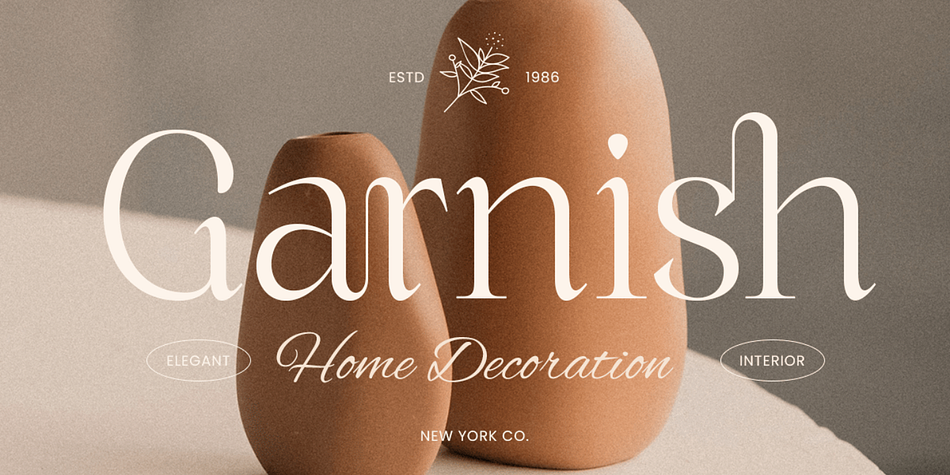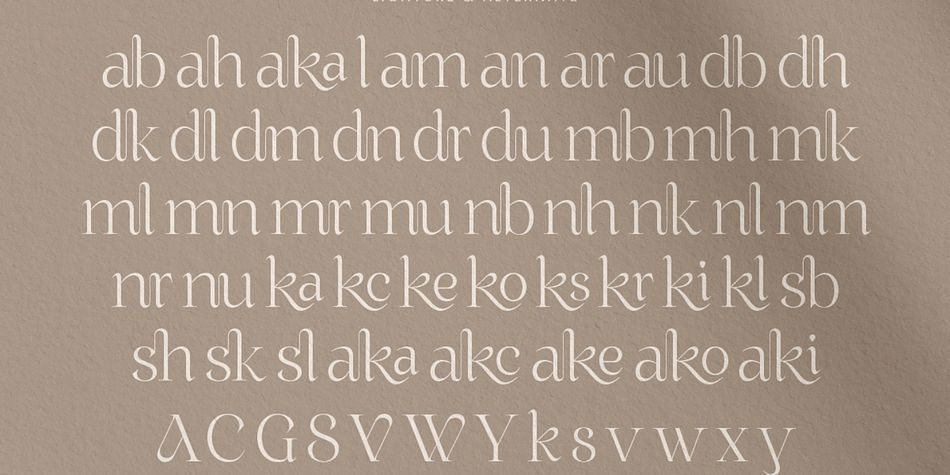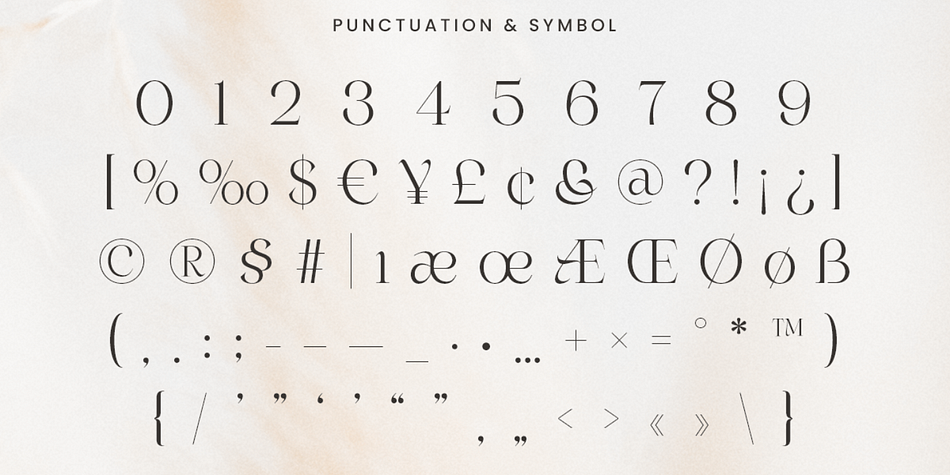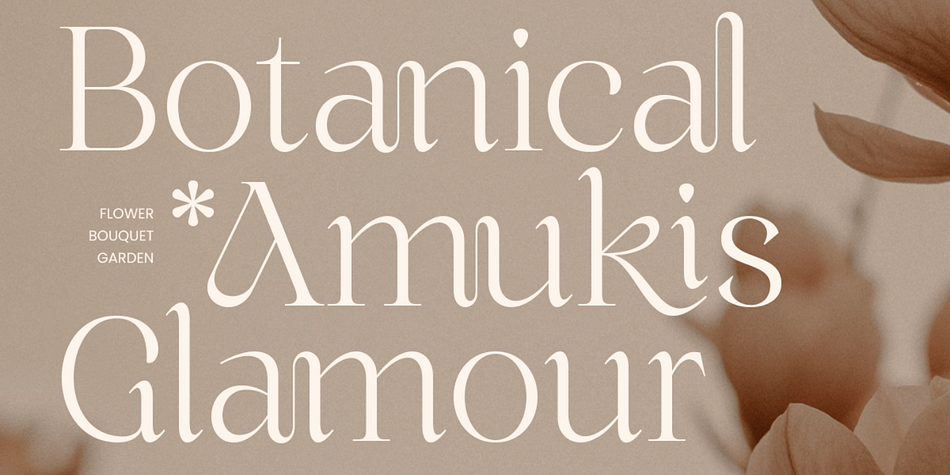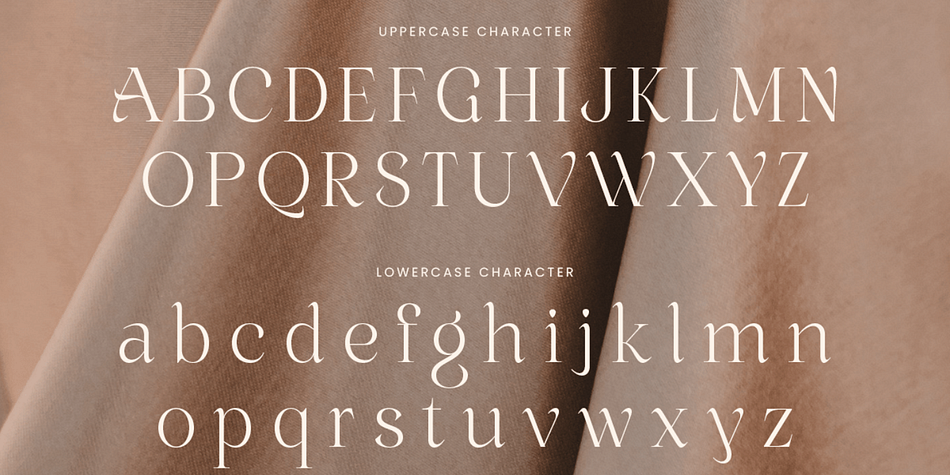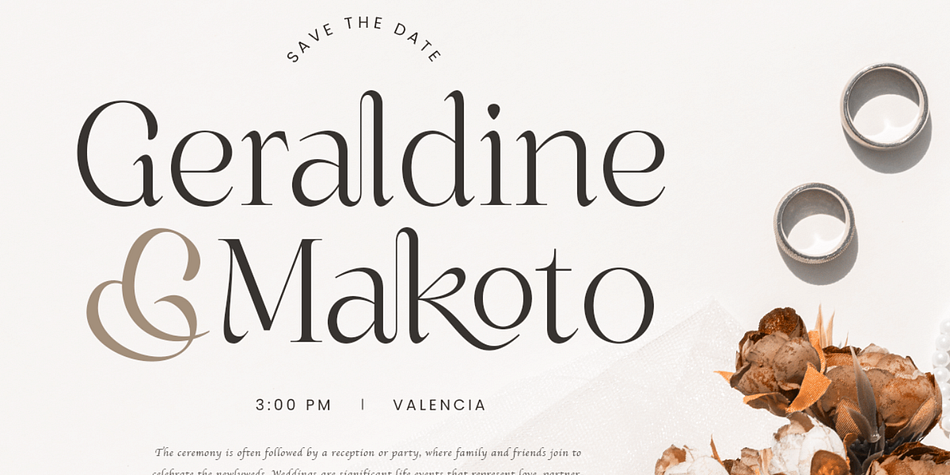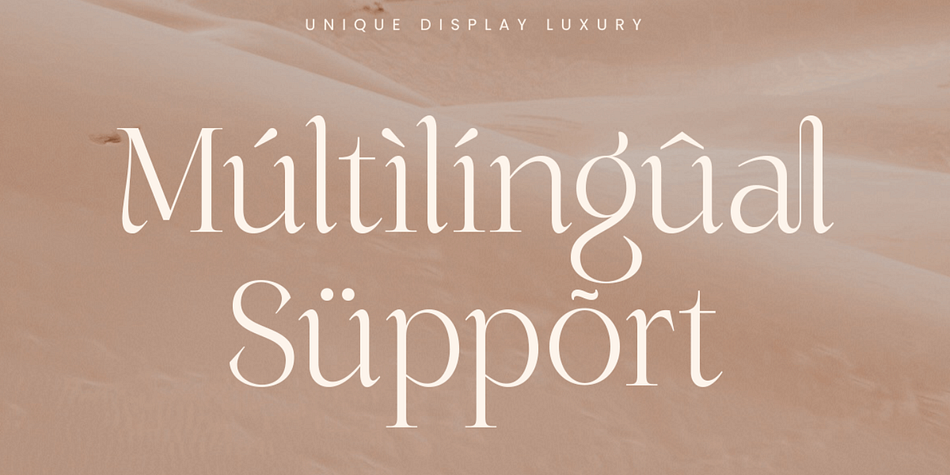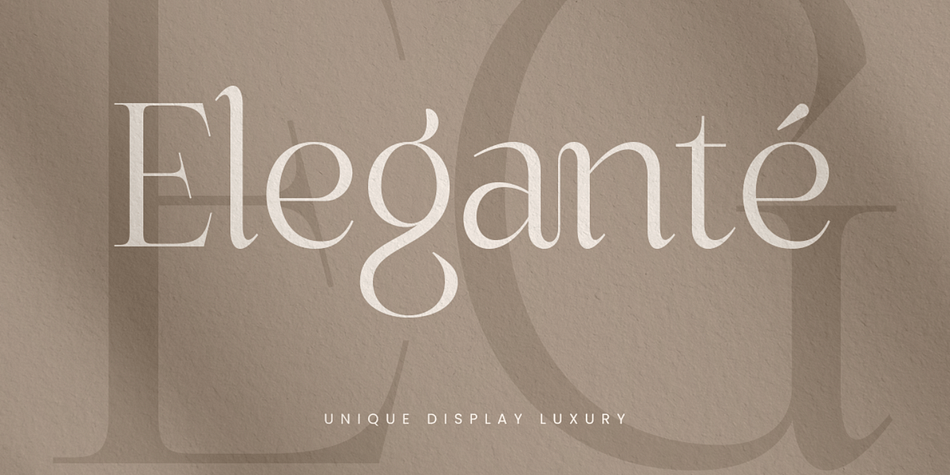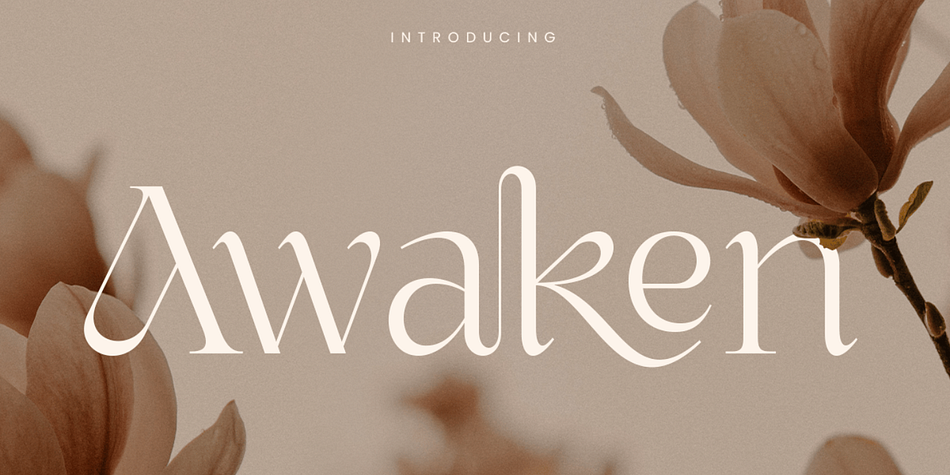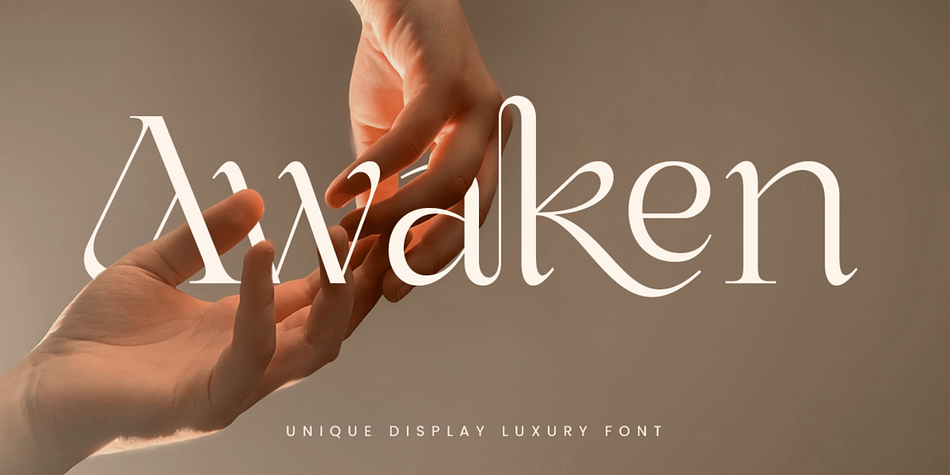
Awaken is a unique display luxury font crafted to elevate any design project with its sophisticated style. This font embodies a perfect balance of elegance and modernity, making it an ideal choice for high-end branding, luxurious logos, and exclusive invitations. The distinctive letterforms exude an air of prestige, helping your work stand out in any context.
With Awaken, you can transform simple text into stunning visual statements that capture attention and convey exclusivity. Its artistic details and carefully crafted strokes create an aura of refinement, perfect for fashion labels, upscale events, and premium products. The versatility of Awaken ensures that it pairs well with both classic and contemporary aesthetics.
Whether you’re working on a branding project, a high-profile marketing campaign, or an elegant editorial layout, Awaken delivers a touch of luxury and uniqueness that enhances your designs. Bring sophistication to your creations with this essential typeface that blends luxury with originality.
Awaken Unique Display Luxury Font Features:
Unique Alternate & Ligature Characters Ready
Stylish Punctuation, Number, and Symbol
Uppercase and Lowercase
Opentype Features
Multilingual Characters available for:
Afrikaans, Albanian, Asu, Basque, Bemba, Bena, Breton, Chiga, Cornish, Dutch, English, Estonian, Filipino, Finnish, Friulian, Galician, German, Gusii, Indonesian, Irish, Italian, Kabuverdianu, Kalenjin, Kinyarwanda, Luo, Luxembourgish, Luyia, Machame, Makhuwa-Meetto, Makonde, Malagasy, Manx, Morisyen, North Ndebele, Nyankole, Oromo, Portuguese, Quechua, Romansh, Rombo, Rundi, Rwa, Samburu, Sango, Sangu, Scottish Gaelic, Sena, Shambala, Shona, Soga, Somali, Spanish, Swahili, Swedish, Swiss.